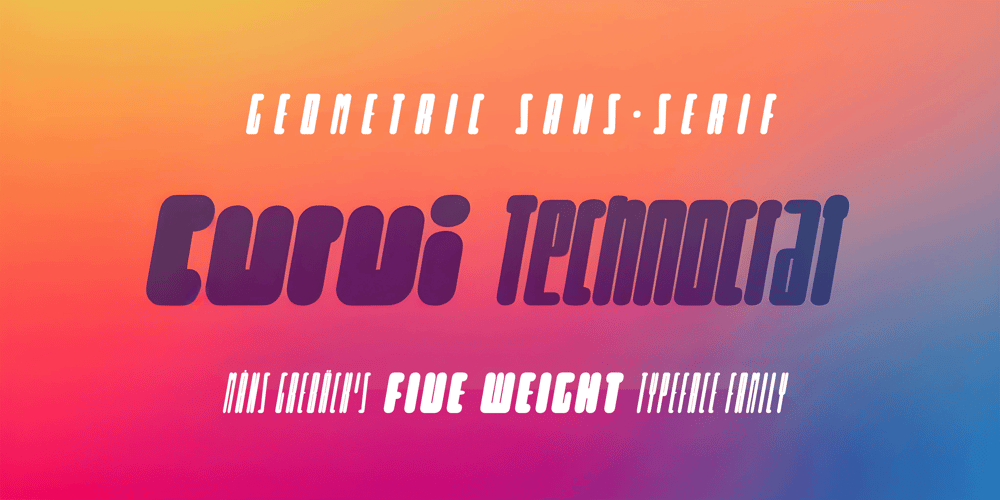
Curvi Technocrat Font Family was designed by Måns Grebäck and published by Mans Greback. Curvi Technocrat contains 5 styles and family package options. Curvi Technocrat is a rounded, geometric font that captures the essence of speed and forward movement. Inspired by the smooth curves of race cars and the energy of urban graffiti, this heavy, slanted font family adds a touch of dynamism and softness to your designs.The Curvi Technocrat font family offers five weights: Thin, Light, Regular, Bold, and Black, making it a versatile choice for a wide range of design projects that require a modern, geometric touch.The font is built with advanced OpenType functionality and has a guaranteed top-notch quality, containing stylistic and contextual alternates, ligatures, and more features; all to give you full control and customizability. It has extensive lingual support, covering all Latin-based languages, from Northern Europe to South Africa, from America to South-East Asia. It contains all characters and symbols you’ll ever need, including all punctuation and numbers.